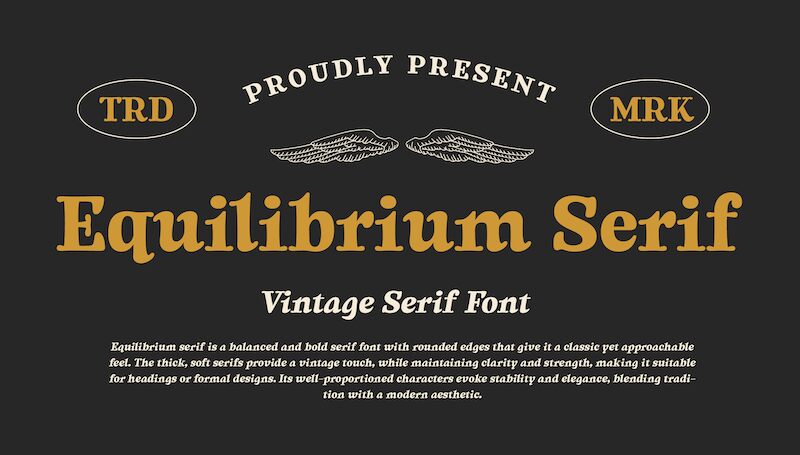
Equilibrium Serif PERSONAL USE Italic
Equilibrium Serif Italic font is a free display font by Mans Greback that balances style and function. Classic yet bold, it embodies a traditional serif style with thick strokes and short edges. It’s distinctive appearance make it stand out in each word or line of text written in this retro italic typeface. Additionally, the generic character set includes lowercase, uppercase, numbers and punctuation symbols.
Equilibrium Serif Italic covers plenty of different use cases such as branding projects, logotypes, packaging labels, movie posters, fliers & brochures covers and titles for books or magazines. Titles used on social media channels can also benefit from the timeless look of this font that’s modern nonetheless if compared to others with purely a retro style .